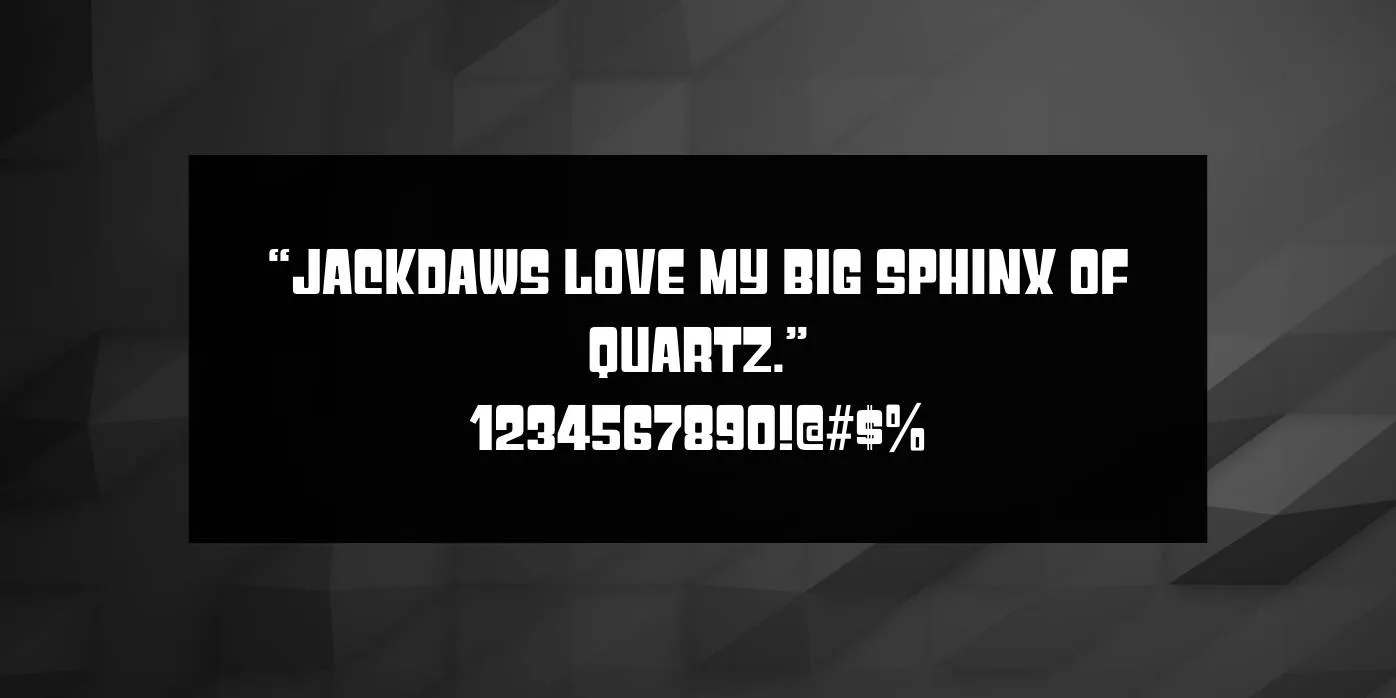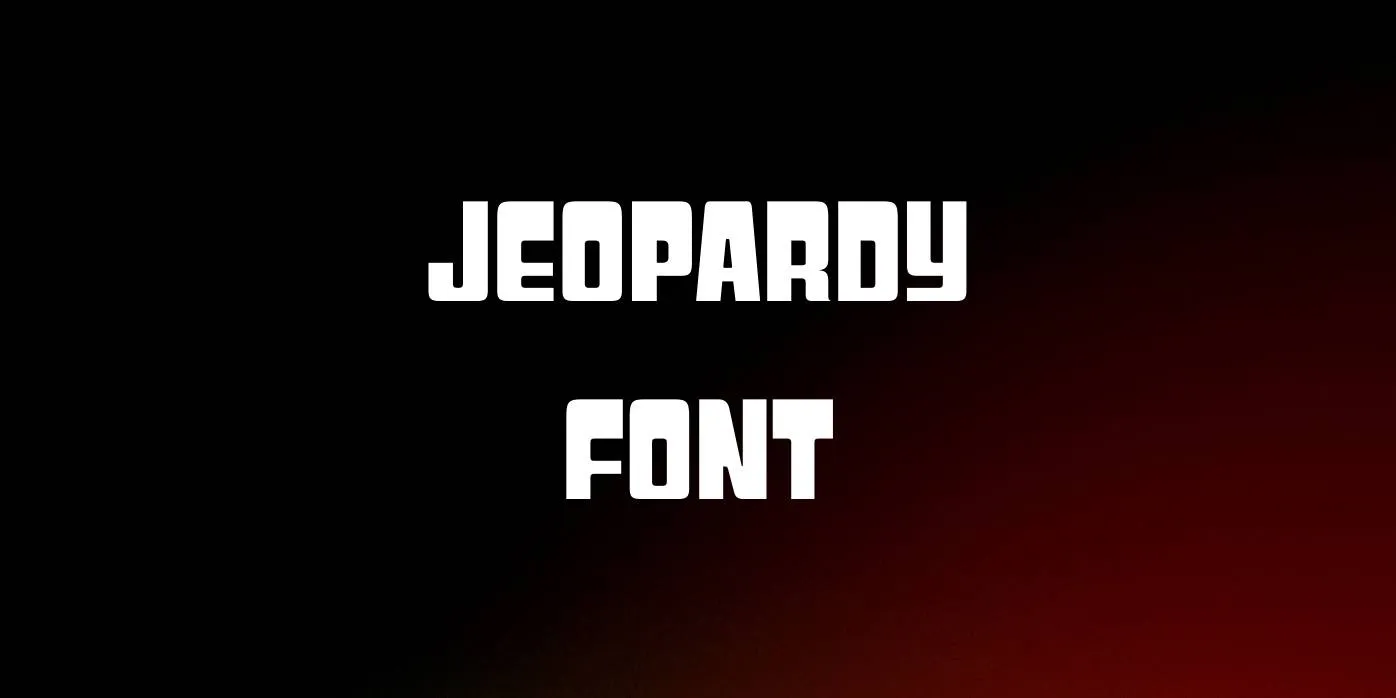
Jeopardy Font
Jeopardy Font is a classic fancy font that has been used on the popular game show Jeopardy! since 1984. The font is elegant and easy to read, making it perfect for trivia games. This Font was created by graphic designer Roger Black.
Black is a well-known graphic designer who has created many iconic logos and fonts, including the Nike swoosh and the MTV logo. He has also designed fonts for many other television shows, including The Simpsons and Sesame Street. If you want to see the similarities of this typeface and want to pair them then avenir Font is the best option for you. The glyph of this font is available in Latin Extended, Cyrillic, Hebrew, Greek, and Vietnamese character sets.